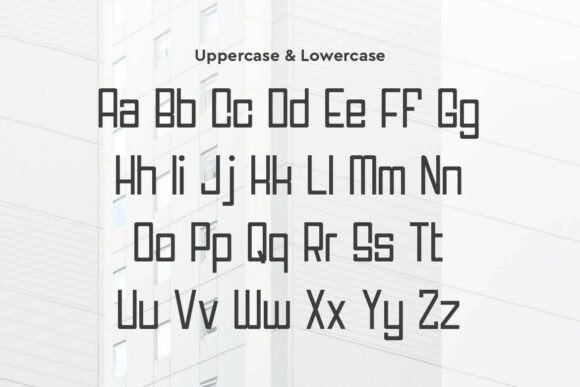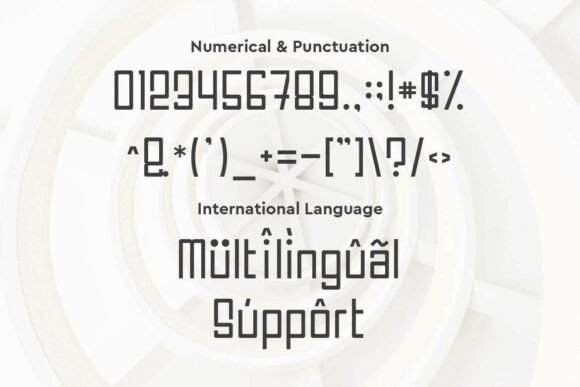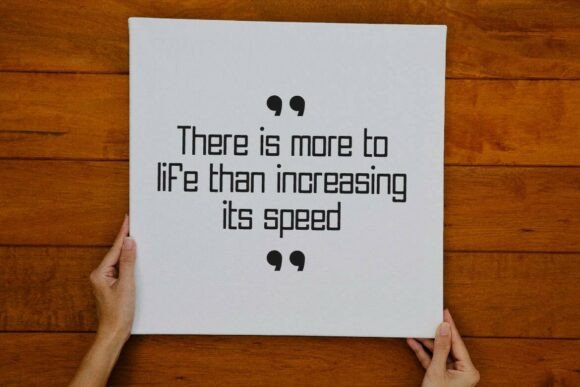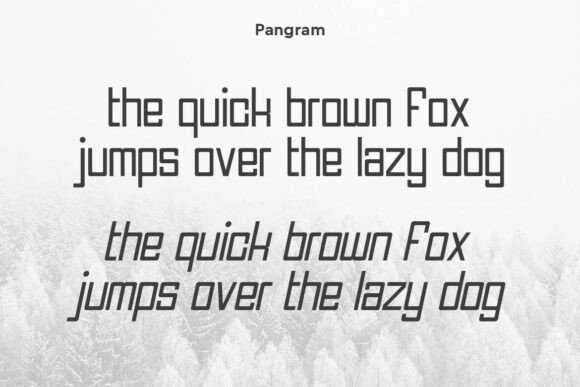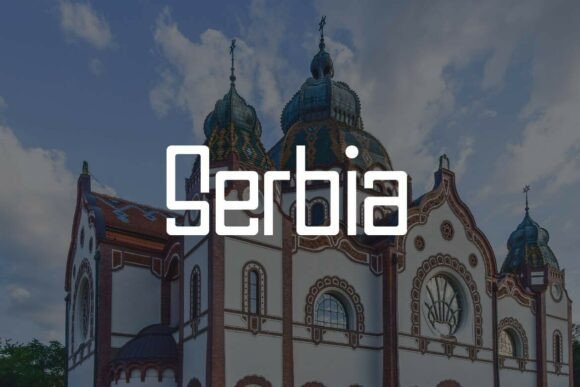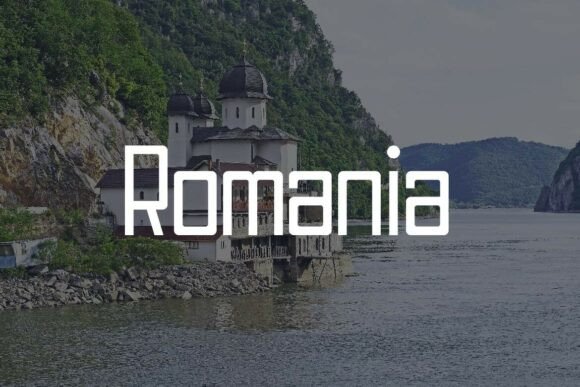
Introduction to Obdach Font
Obdach is a structured and modern geometric sans serif font inspired by clean design and architectural form.
With sharp lines, circular balance, and a minimalistic tone, Obdach delivers clarity and strength — perfect for branding, posters, editorial layouts, signage, digital interfaces, and creative projects that require precision with personality .